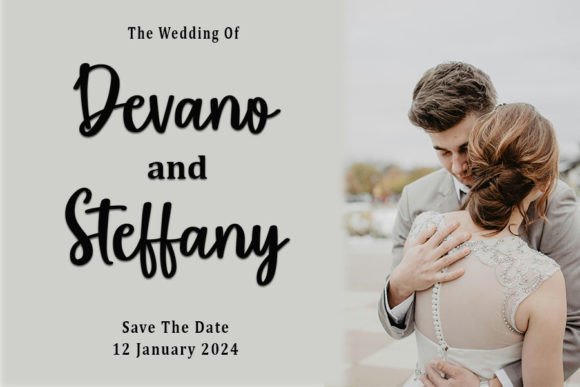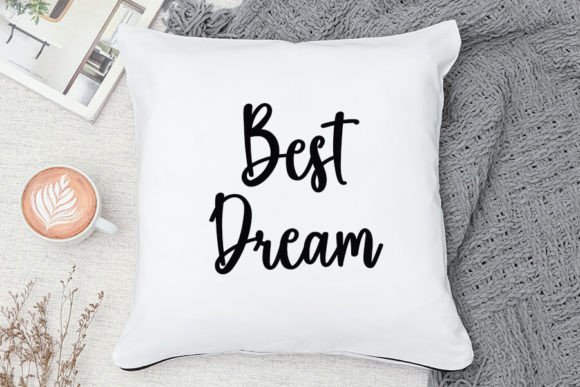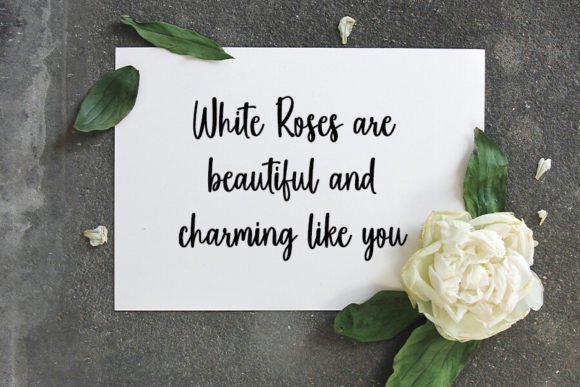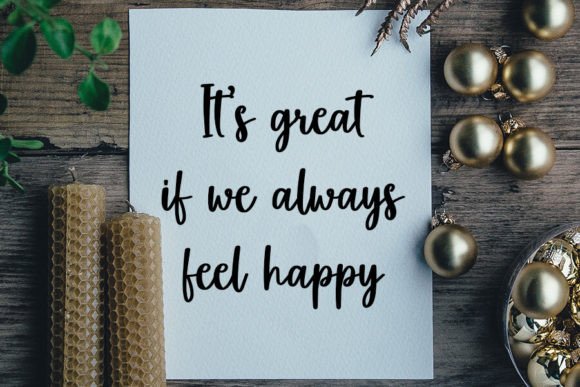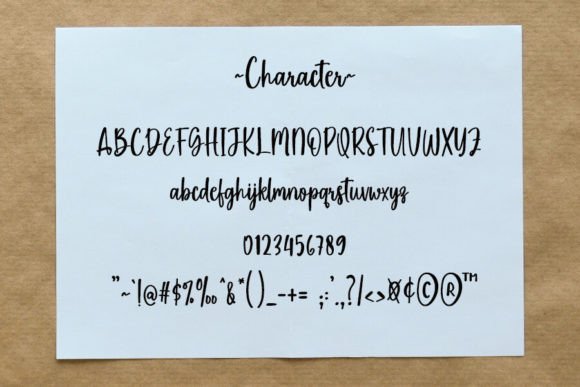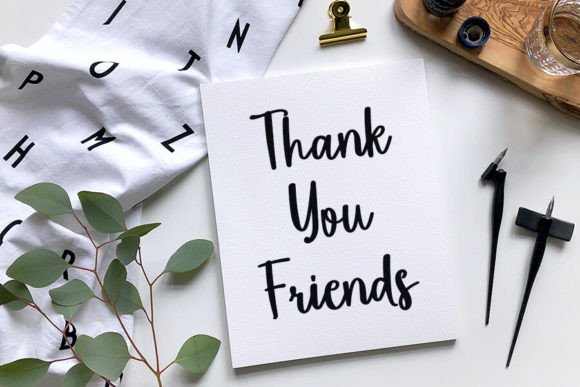
Introducing Daydreams Font: Elevate Your Designs with Elegance
Are you a designer or crafter looking for a font that exudes elegance and sophistication? Look no further than Daydreams Font. This stylish and incredibly elegant script font is perfect for adding a handwritten touch to your designs. From wedding invitations to business cards, Daydreams Font is sure to make your creations stand out.
What Makes Daydreams Font Special?
Daydreams Font is a beautifully crafted script font that boasts a range of characteristics that make it perfect for various design projects. Here are a few features that set it apart:
• Elegant and Refined: Daydreams Font features flowing lines and delicate curves, giving it an air of sophistication and refinement.
• Handwritten Touch: The font’s script style gives it a personal and human touch, making it perfect for designs that require a more personal feel.
• Versatile: Daydreams Font can be used for a wide range of design projects, from wedding invitations and greeting cards to logos and business cards.
Wedding invitations, save-the-date cards, and other event-related designs require a font that is both elegant and romantic. Daydreams Font fits the bill perfectly. Its delicate curves and flowing lines evoke a sense of whimsy and romance, making it perfect for:
• Wedding invitations
• Save-the-date cards
• Thank you cards
• Event posters
Ideal for Stationery and Paper Crafts
Daydreams Font is also perfect for paper crafters and stationery designers. Its elegant script style looks stunning on:
• Greeting cards
• Journal pages
• Scrapbooking projects
• Paper flowers and other embellishments
Great for Logos and Branding
Daydreams Font can also be used to create stunning logos and branding materials. Its unique script style can help your business stand out from the competition. Use it for:
• Logos
• Business cards
• Letterheads
• Brochures
Tips for Using Daydreams Font
To get the most out of Daydreams Font, here are a few tips to keep in mind:
• Pair it with a simple font: Daydreams Font works best when paired with a simple font. Try pairing it with a clean sans-serif font for a striking contrast.
• Experiment with colors: Daydreams Font looks stunning in a range of colors. Experiment with different hues and shades to find the perfect combination for your design.
• Use it sparingly: While Daydreams Font is beautiful, it can be overwhelming if used too much. Use it sparingly to add a touch of elegance to your design.
Daydreams Font is a stunning script font that is perfect for designers and crafters looking to add a touch of elegance to their designs. Its versatile style and range of uses make it a valuable addition to any design library. Whether you’re creating wedding invitations, logos, or greeting cards, Daydreams Font is sure to make your designs stand out.